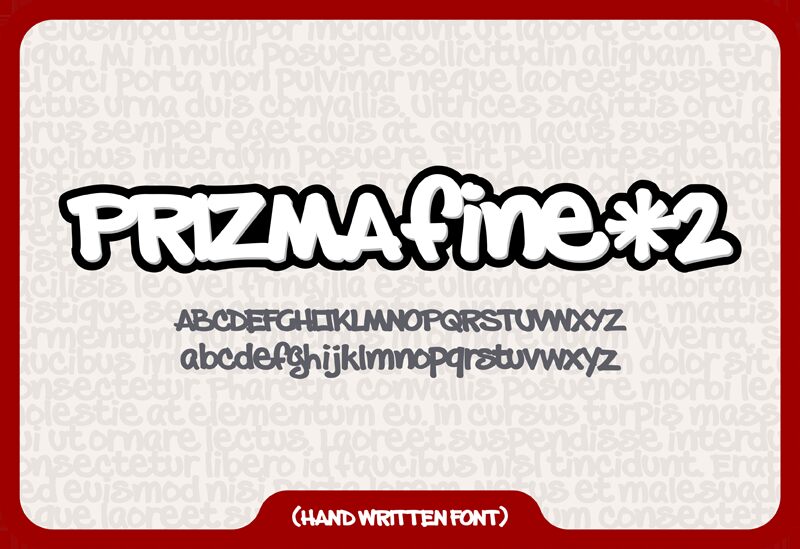
Prizma Fine 2 font by Jeff Diaz is a free font family created for the artistic self. Graffiti surely comes to mind after looking at the style of the letters, with a handwriting finish and overall informal feel. Energetic, contemporary, and fun, Prizma combines a style resembling quick spray can gestures, with a casual, bold aesthetic. The family supports numerals, punctuation, symbols, and a variety of languages.
Entertaining and playful, this display font is the best choice for use in all sorts of informal contexts. Customize posters, banners, apparel graphics, children’s book covers, and movie titles. Any sort of artistic context including album cover art, video game design, planner decorations, t-shirt designs, and social media content will benefit from this funky typeface.